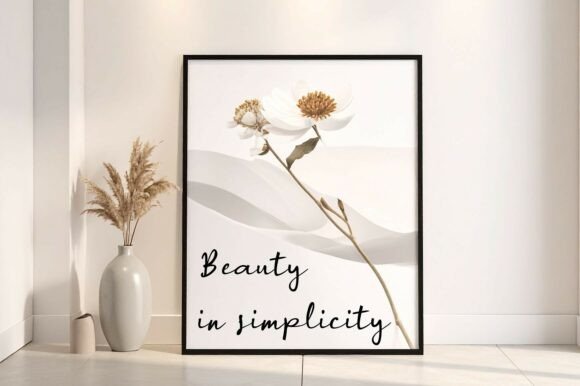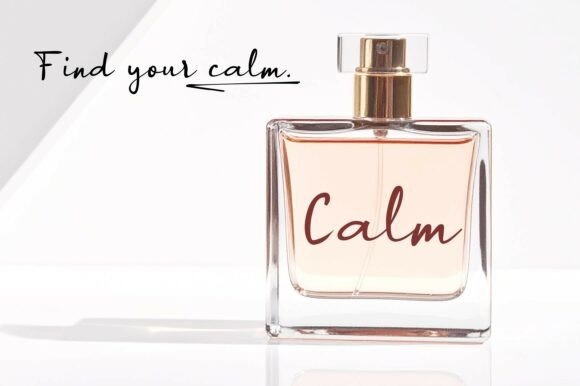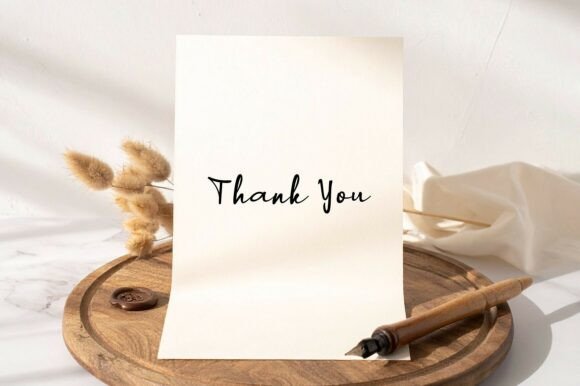
Introduction to Applicant Signature Font
Have you ever stared at a blank piece of paper, trying to put your thoughts into words, and wished for a spark of creativity to ignite your design? That’s exactly what happened to me when I stumbled upon the Applicant Signature Font. This elegant script font is more than just a design resource – it’s a gateway to adding a personal touch to your creative projects.
As designers, we’re always on the lookout for high-quality fonts that can elevate our work and make it stand out. The Applicant Signature Font is a game-changer, offering a refined and authentic script that perfectly emulates the natural elegance of a genuine handwritten signature. With its fluid connections and legible design, this font is ideal for adding a bespoke feel to any design.
Applicant Signature Font Key Features
- Features a unique, modern design that can be used for a wide range of applications, from business cards to presentations.
Honest Review: Applicant Signature Font
As a designer, I’m always on the lookout for high-quality design resources that can elevate my creative projects. Recently, I stumbled upon the Applicant Signature Font, and I’m excited to share my honest review with you.
- ✨ High-quality design: The font is sleek, modern, and professional, making it perfect for applications, resumes, and other important documents.
While the Applicant Signature Font is a great resource, there are a few limitations to keep in mind:
- ⚠️ Limited font styles: The font only comes in a single style, which might limit its versatility for some designers.
- ⚠️ Not suitable for creative projects: The font is specifically designed for formal applications and documents, making it less suitable for creative projects that require a more playful tone.
Applicant Signature Font
Tips for Getting the Most Out of the Applicant Signature Font
Use the Applicant Signature Font in conjunction with other design elements to create a cohesive look. Experiment with different font sizes and colors to find the perfect combination for your design.
The Applicant Signature Font is commonly used in job applications, resumes, and other professional documents. It’s also a great resource for designers and artists looking to add a touch of professionalism to their work.